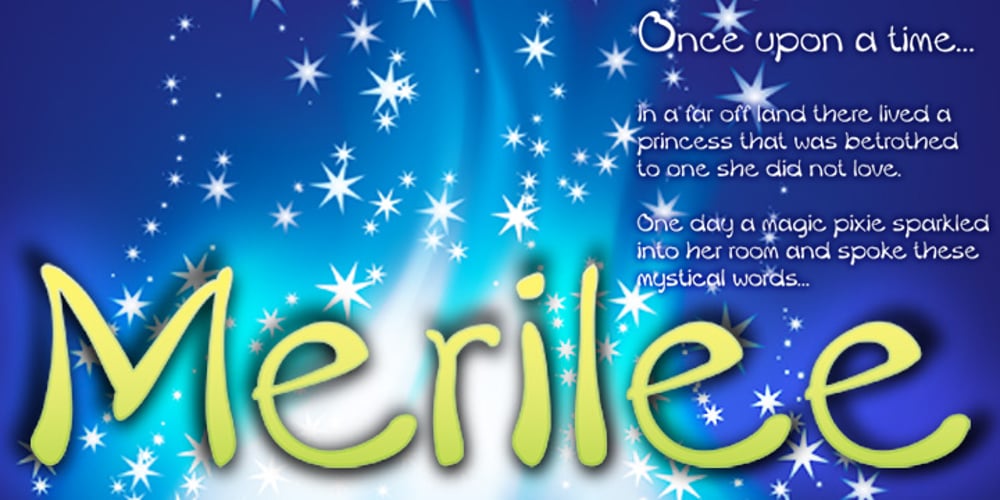
Merilee
Merilee font
Merilee Font Family was designed by published by SummitType. Merilee contains 20 styles and family package options. Fonts with handwritten characteristics are always an attractive option when creating projects that call for a personal touch. Merilee helps deliver a natural pattern to computer generated text, helping readers feel a more personal attachment to the words in front of them. Merilee includes a full character set (UPPER and lower case), all punctuation, all special characters, Euro symbol, and all Latin Extended-A characters, making this font a perfect match for a variety of creative projects including holiday and kids projects, signs, logo designs, banners and advertisements.